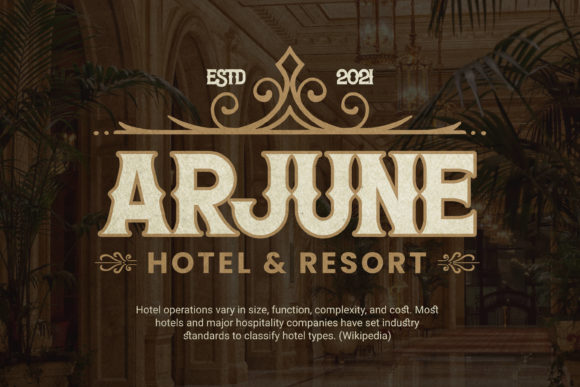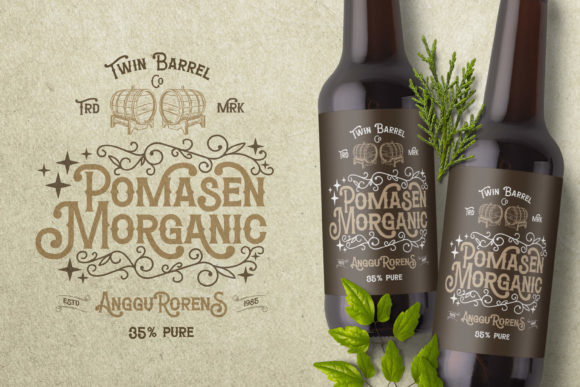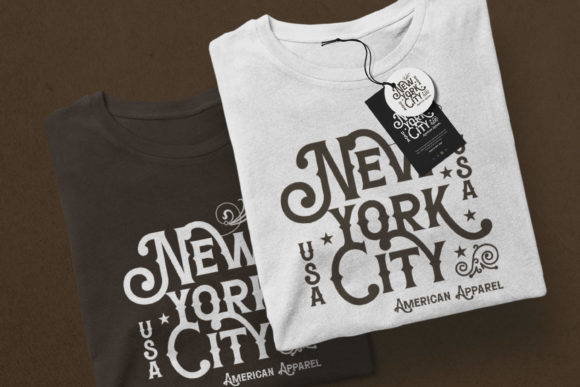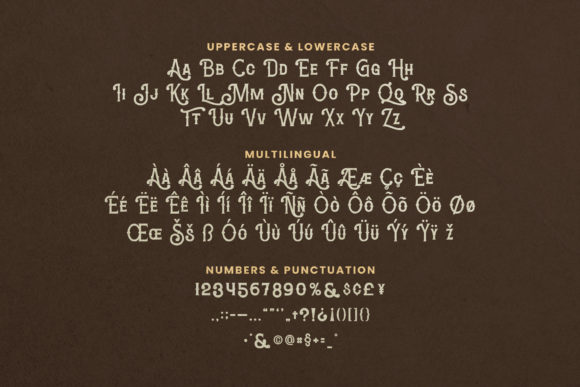
Introduction to Mambality Font
Mambality is a thick lettered, vintage styled and bold display font.
It is PUA encoded which means you can access all of the glyphs and swashes with ease Add it confidently to your favorite creations and let yourself be amazed by the outcome generated.
Key Features of Mambality Font